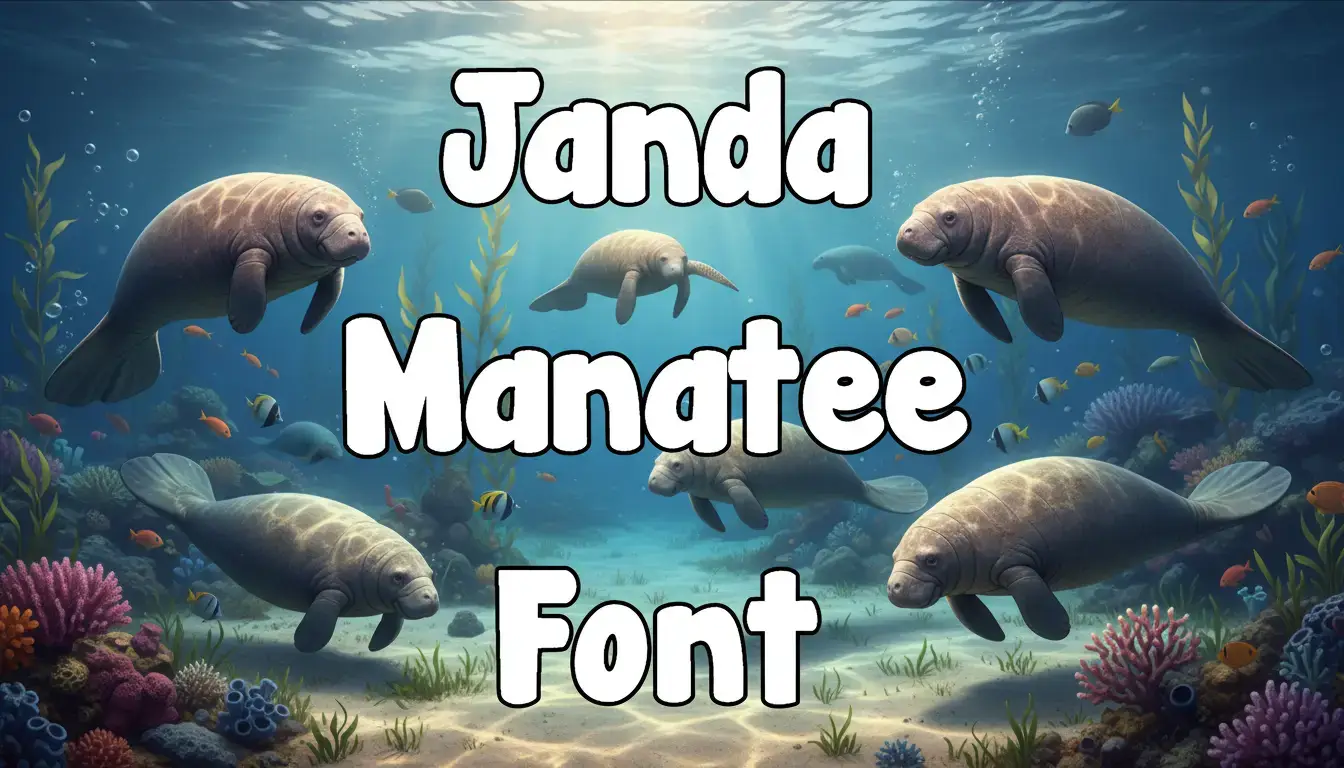
Janda Manatee Font
Janda Manatee
Janda Manatee is a fancy font created by Kimberly Geswein. It's a decorative display font with plenty of personality, made to grab attention. It's a free download, and you can try it with your own text in the preview above first.
- Designer: Kimberly Geswein
What You Can Type With Janda Manatee
With complete upper and lowercase letters and all ten digits, Janda Manatee is ready for real wording, not just a single headline. Common punctuation such as &, !, ? and @ is included as well. It also has the accented letters you need for Spanish, French, German, Portuguese and Italian.
Where Janda Manatee Works Best
Think of Janda Manatee for posters, logos and eye-catching headlines. Use it for one standout word or headline and let simpler fonts handle the rest.
Does Janda Manatee support accented letters?
Yes. Janda Manatee includes the accented letters needed for Spanish, French, German, Portuguese and Italian, so it works for more than just English.